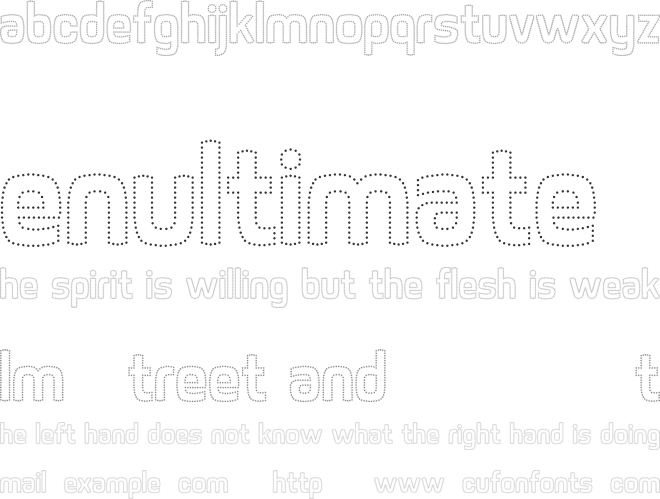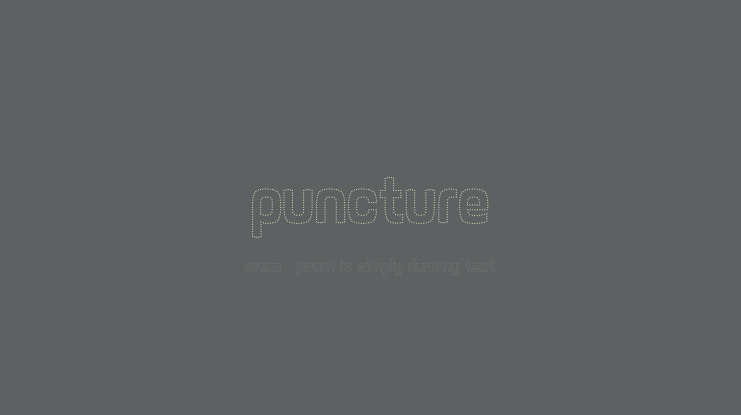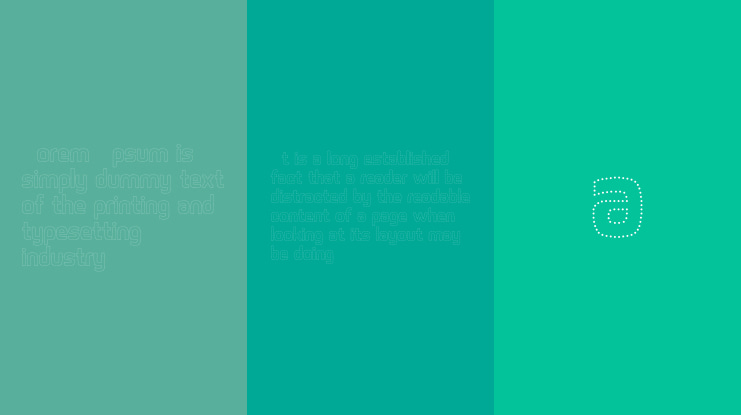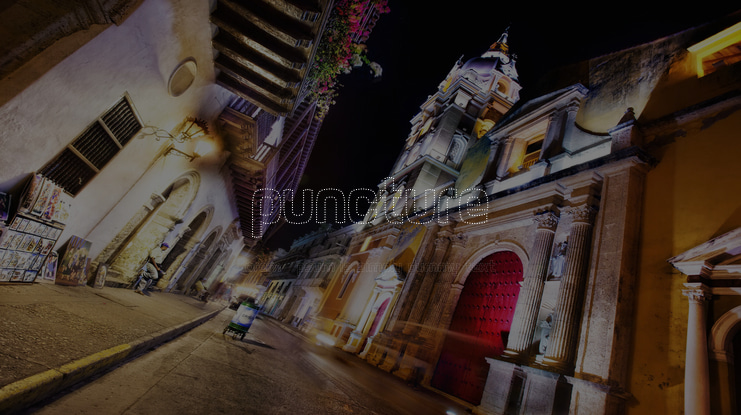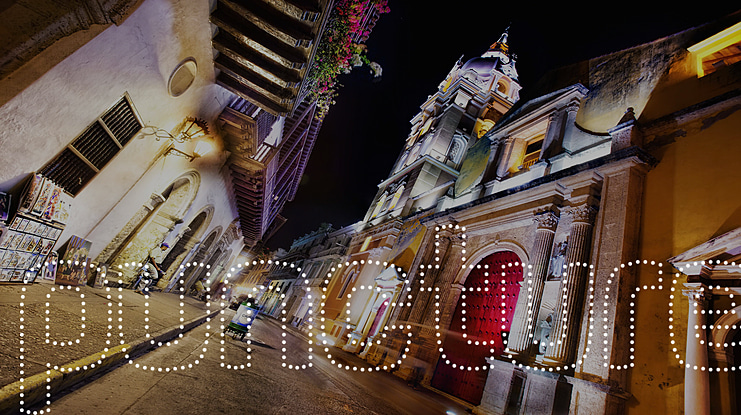
puncture Font
something i've been working on recently. i'm still looking for a solution to virtually increase my screen resolution, so i would have more grid space. i don't know if the line strength is consistent and i propably won't start with the capital letters until then. anyway i thought i might as well throw this in to see what you guys think about it so far.